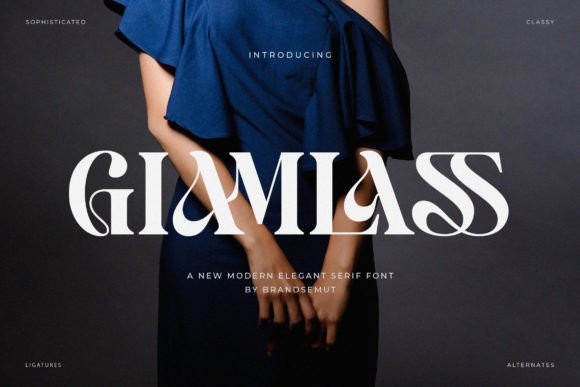
Giamlass Font: Elevate Your Design with Elegance and Sophistication
In the world of typography, fonts play a crucial role in conveying the tone and personality of a brand or design. Among the numerous font styles available, serif fonts have always been a popular choice for their classic and timeless appeal. One such font that has gained significant attention in recent times is the Giamlass Font. In this article, we’ll explore the features, benefits, and uses of Giamlass, an elegant, classy, and modern display serif font.
What is Giamlass Font?
Giamlass is a modern display serif font designed to add a touch of elegance and sophistication to any design project. Its clean lines, smooth curves, and classic serif style make it an ideal choice for headings, logos, branding, magazines, product packaging, and invitations.
Key Features of Giamlass Font
- Ligature: Giamlass comes equipped with ligature, which allows for a more natural and fluid reading experience. Ligatures are special characters that combine two or more letters, creating a unique and visually appealing effect.
- Alternates: The font also features many alternates, providing designers with a range of options to experiment with different styles and variations.
- Clean Lines and Smooth Curves: Giamlass boasts clean lines and smooth curves, giving it a refined and polished look that’s perfect for high-end designs.
Best Use Cases for Giamlass Font
Giamlass is a versatile font that can be used in various design projects, including:
- Headings and Titles: Giamlass is ideal for headings and titles, adding a touch of elegance and sophistication to any text.
- Logos and Branding: The font’s classic serif style and clean lines make it a great choice for logos and branding, conveying a sense of tradition and professionalism.
- Magazines and Editorials: Giamlass can be used to create visually appealing magazine layouts, adding a touch of refinement and culture to any publication.
- Product Packaging: The font’s elegant style makes it suitable for product packaging, particularly for luxury brands or high-end products.
- Invitations and Events: Giamlass is perfect for invitations, event branding, and other formal events, exuding a sense of sophistication and glamour.
Tips for Using Giamlass Font Effectively
To get the most out of Giamlass, consider the following typography tips:
- Pair with a Sans-Serif Font: Combine Giamlass with a sans-serif font to create a harmonious contrast between headings and body text.
- Experiment with Ligatures: Take advantage of Giamlass’s ligature feature to add visual interest to your text.
- Adjust Font Sizes: Play with different font sizes to create a clear hierarchy of information and emphasize key messages.
Benefits of Using Giamlass Font
Giamlass offers several benefits to designers and brands, including:
- Unique and Memorable: Giamlass helps create unique and memorable designs that stand out from the crowd.
- Elegant and Sophisticated: The font’s elegant style adds a touch of sophistication and refinement to any design project.
- Versatile: Giamlass can be used in various design projects, from headings and logos to magazines and product packaging.
Giamlass Font is an elegant, classy, and modern display serif font that’s perfect for designers and brands looking to add a touch of sophistication to their design projects. With its ligature feature, alternates, and clean lines, Giamlass offers a unique and memorable way to convey your message. Whether you’re designing headings, logos, magazines, or product packaging, Giamlass is an excellent choice for any project that requires elegance and refinement.